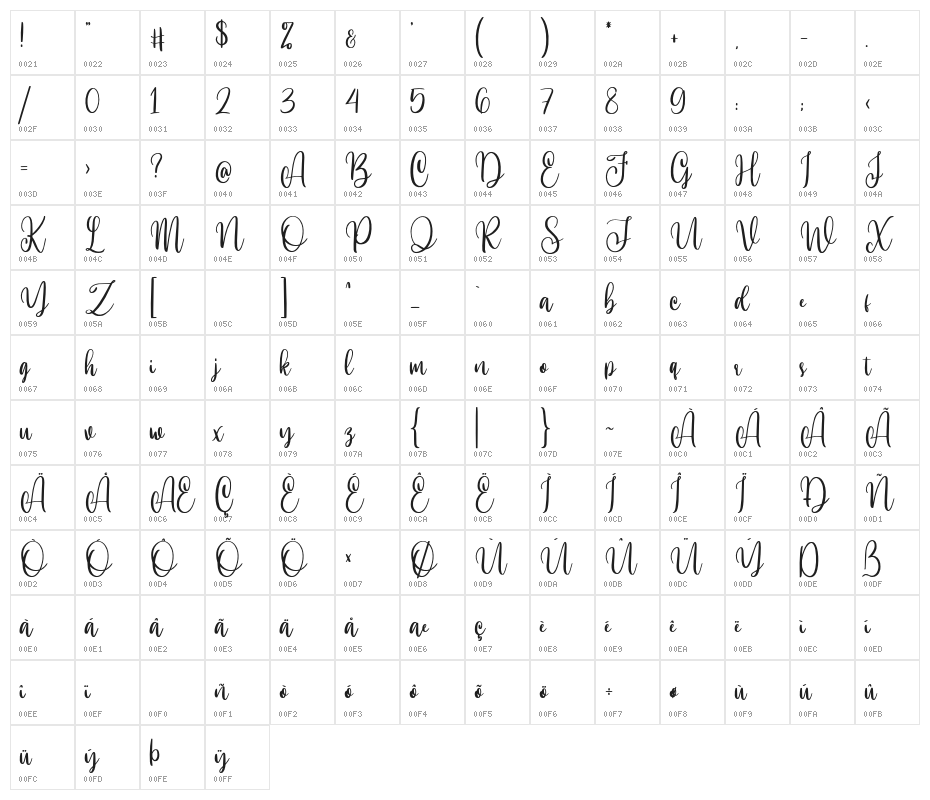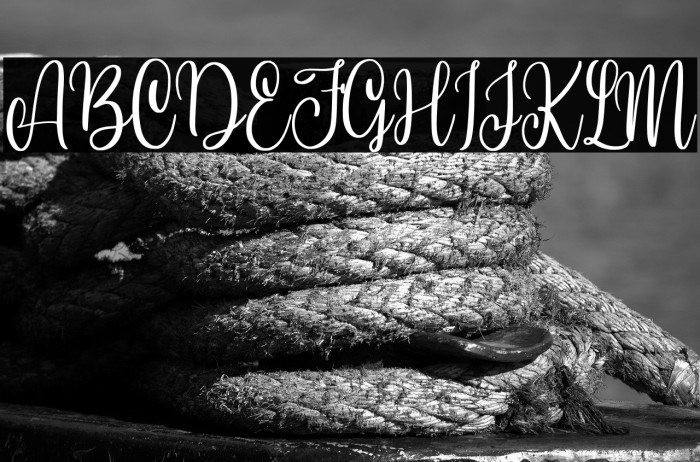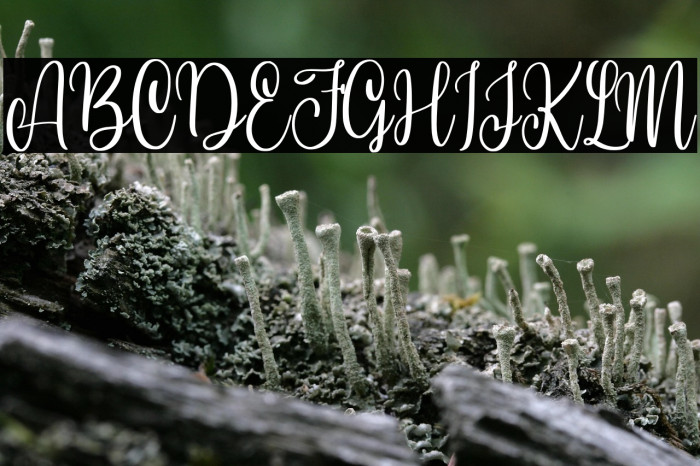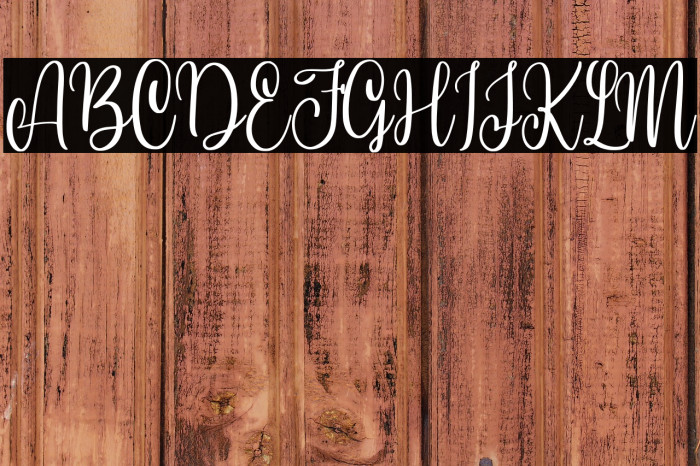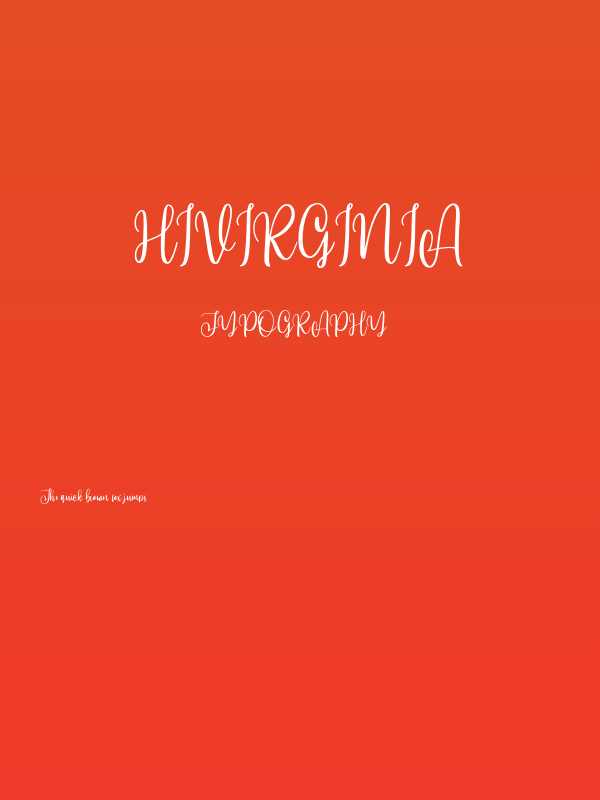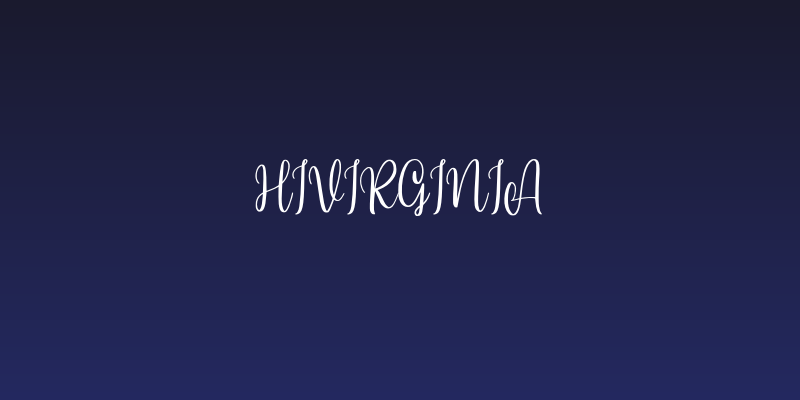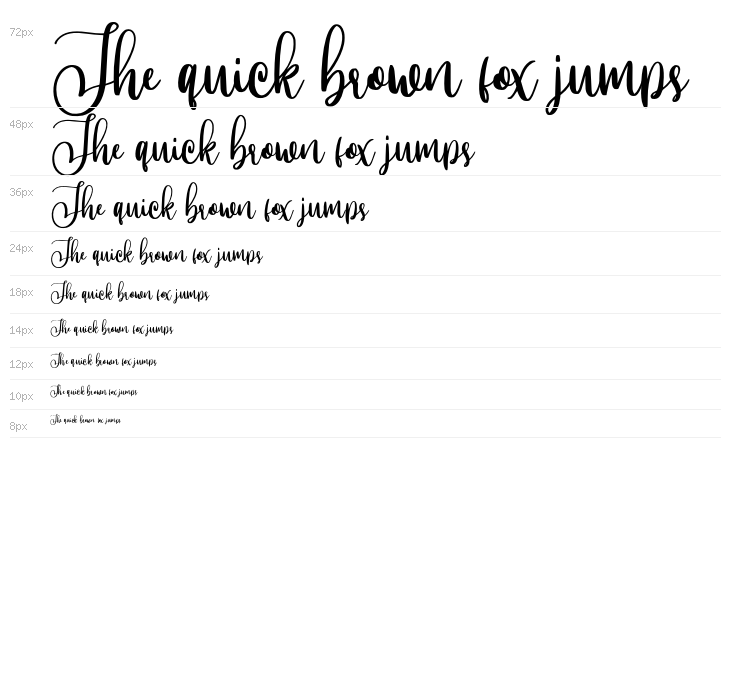
HiVirginia Font
HiVirginia Description
This font features an elegant and flowing script style, characterized by its smooth, cursive strokes and a sense of fluidity. The uppercase letters are ornate, with sweeping curves and loops that give a sense of sophistication and grace. The lowercase letters maintain a consistent flow, complementing the uppercase with their rounded forms and gentle connections. Numbers and special characters are designed to match the overall aesthetic, ensuring a cohesive look across all elements. This font exudes a sense of elegance and is perfect for projects that require a touch of class and refinement.
| Proposed Projects | Ideal for wedding invitations, elegant branding, greeting cards, and upscale packaging. |